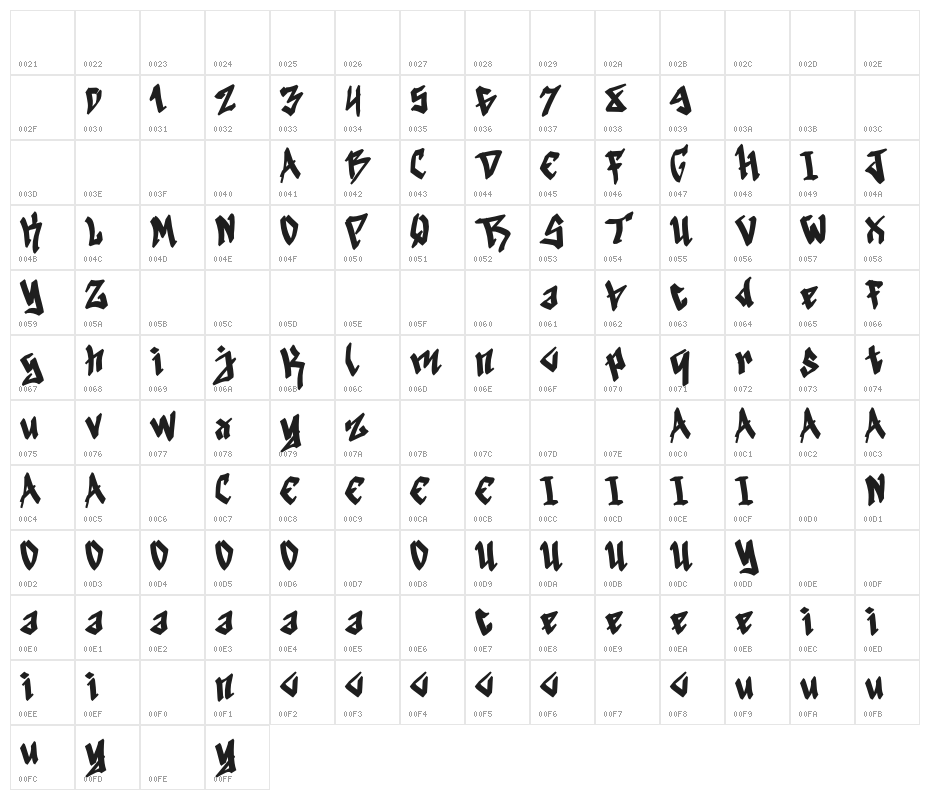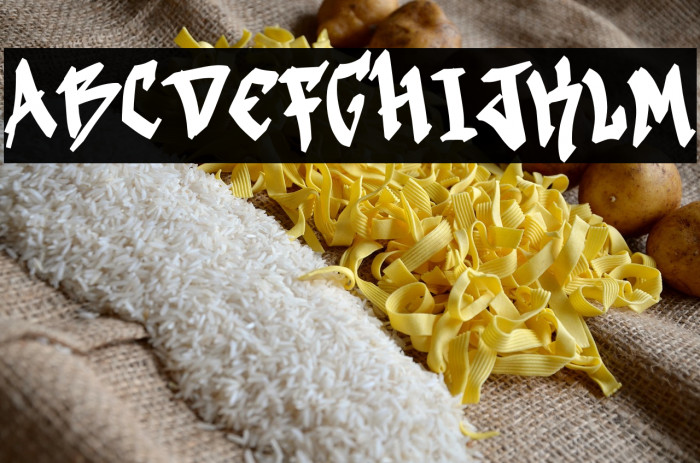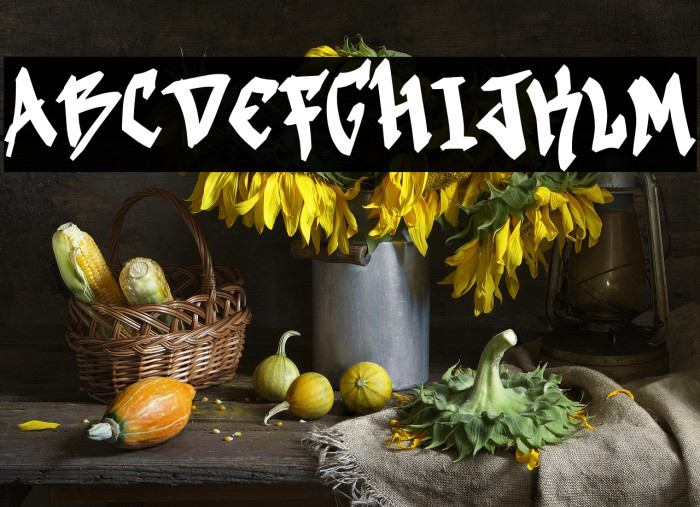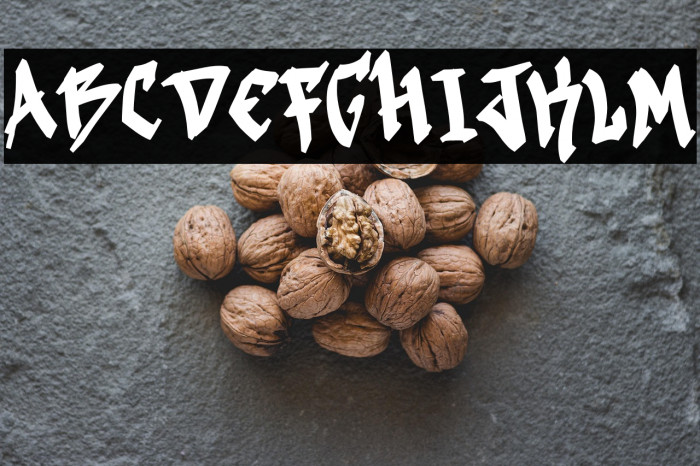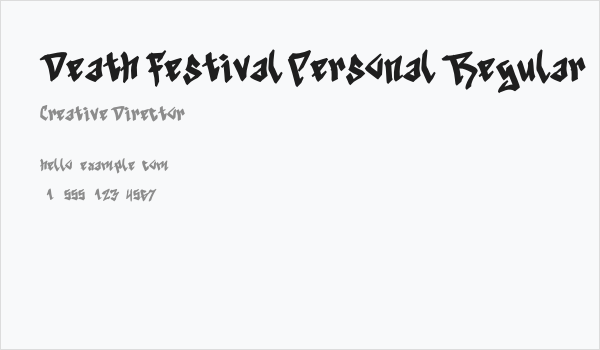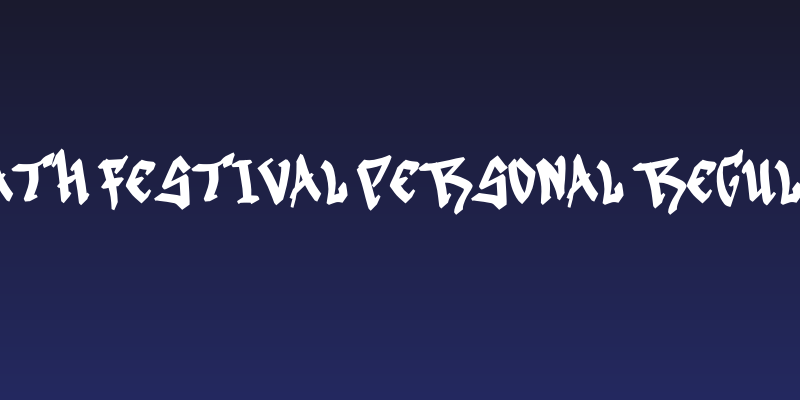
Death Festival Personal Regular Font
Death Festival Personal Regular Description
This font features a bold, angular design with a distinct gothic influence. The characters are sharp and edgy, with a strong presence that commands attention. The uppercase and lowercase letters maintain a consistent style, with exaggerated serifs and pointed edges that give the font a dramatic flair. Numbers and special characters follow the same aesthetic, ensuring a cohesive look across all text. The overall appearance is striking and impactful, making it ideal for projects that require a bold statement.
| Overall Style | Gothic, Dramatic, Edgy |
| Use Case | Headlines, Posters, Branding |
| Proposed Projects | Ideal for music festival posters, edgy branding, or Halloween-themed designs. |